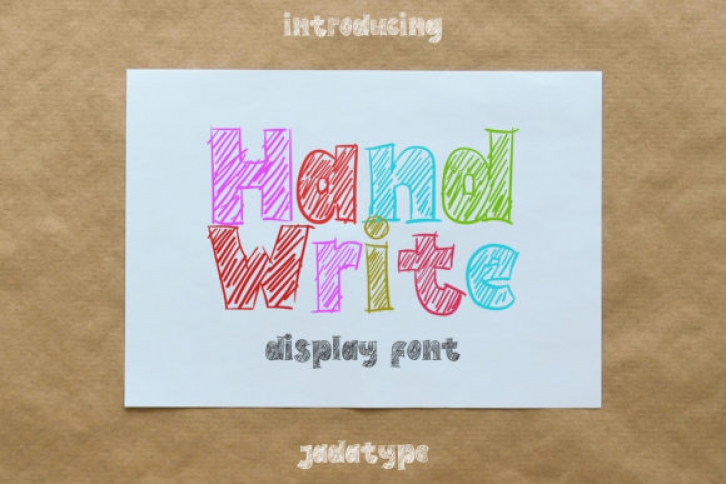
Hand Write is a cute, thick lettered and unique display font. This font is perfect for children themed designs, especially when combined with bright colors.